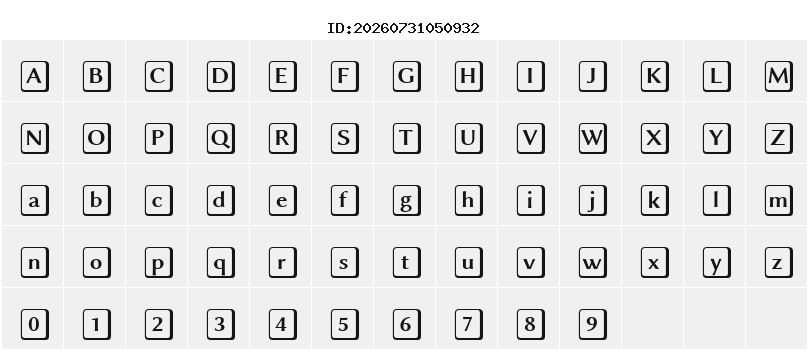
• Font Name: Linux Biolinum Keyboard
• Designer: Philipp H. Poll
About Linux Biolinum Keyboard.ttf
Linux Biolinum Keyboard.ttf is a modern, elegant sans-serif font designed for ultimate readability and visual harmony. Perfect for branding, headlines, web design, and print materials.